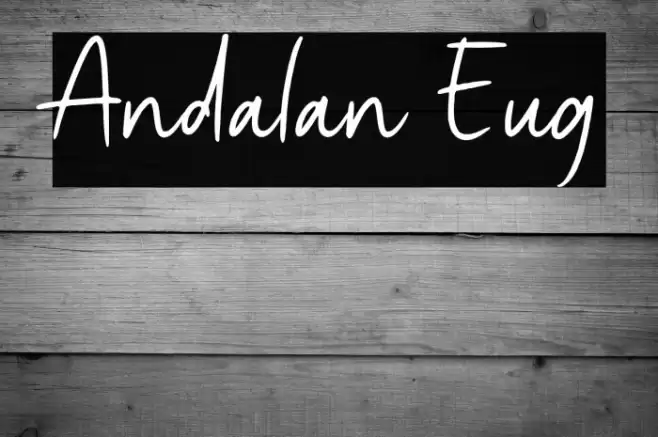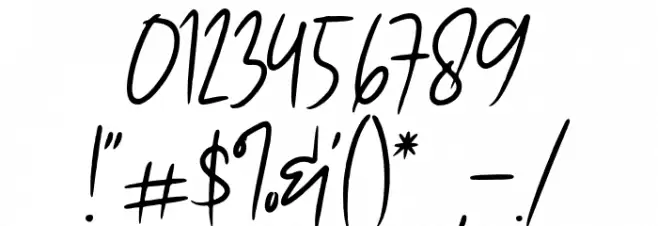
Andalan Eug Font
Andalan Eug Description
This font features a lively and dynamic handwritten style, characterized by its fluid and organic strokes. The uppercase letters are tall and slightly narrow, with a playful yet elegant flair. The lowercase letters maintain a consistent flow, enhancing readability while retaining a casual aesthetic. Numbers and special characters are crafted with the same energetic style, making them seamlessly integrate with the alphabet. The overall appearance is both modern and approachable, suitable for a variety of creative applications.
A lively, handwritten font with fluid strokes and a modern, casual aesthetic from Uncategorized fonts.
- Proposed Projects: Ideal for greeting cards, personal branding, social media graphics, and creative invitations.
- Use Case: Logos, Headlines, Creative projects